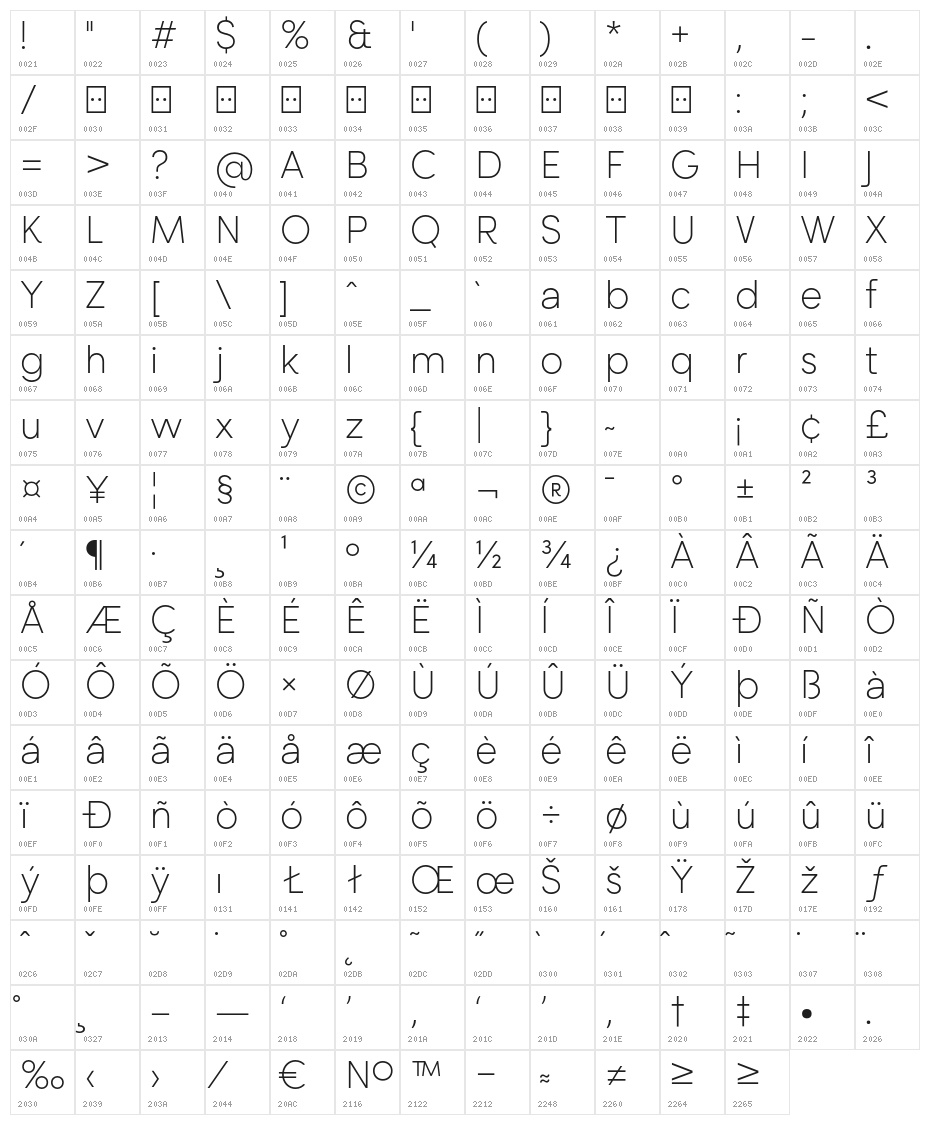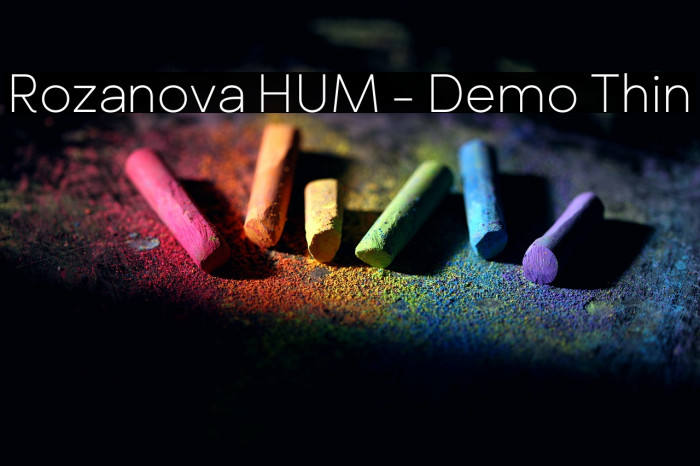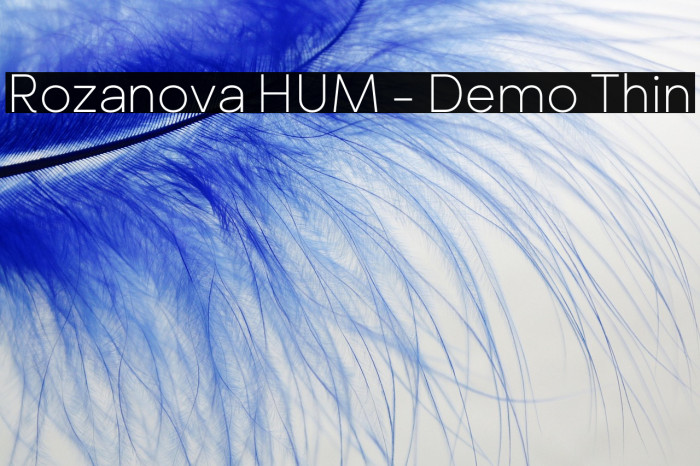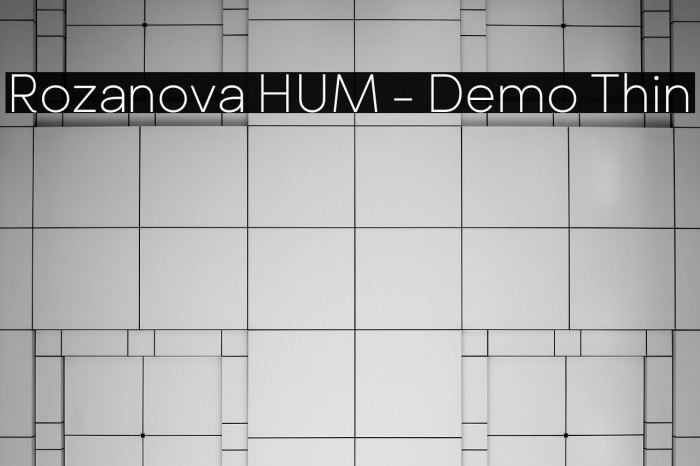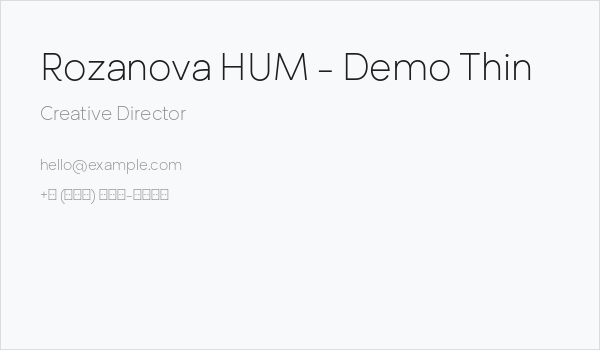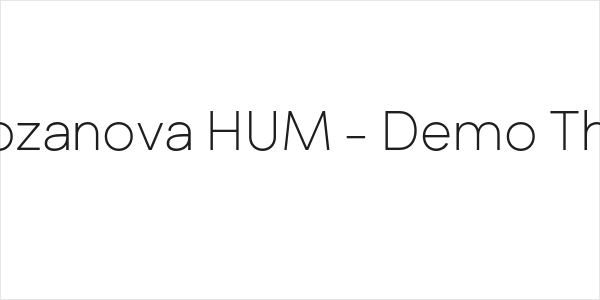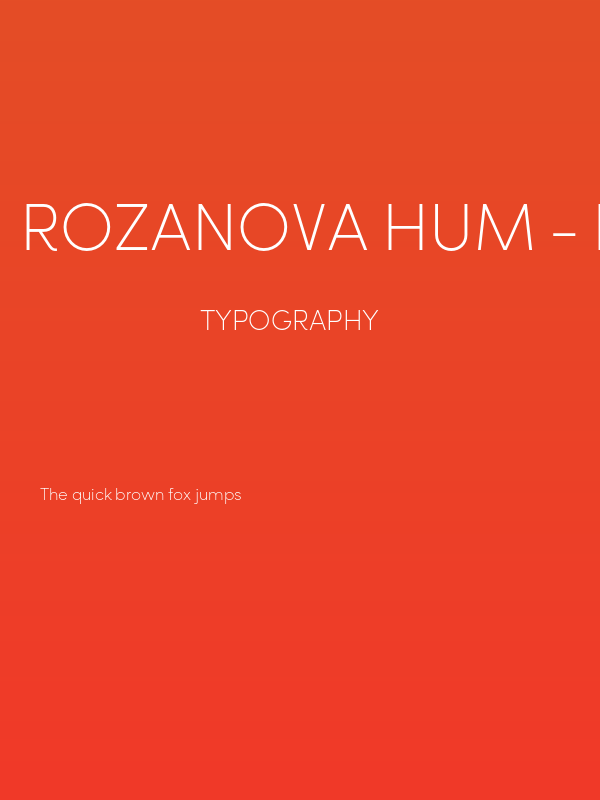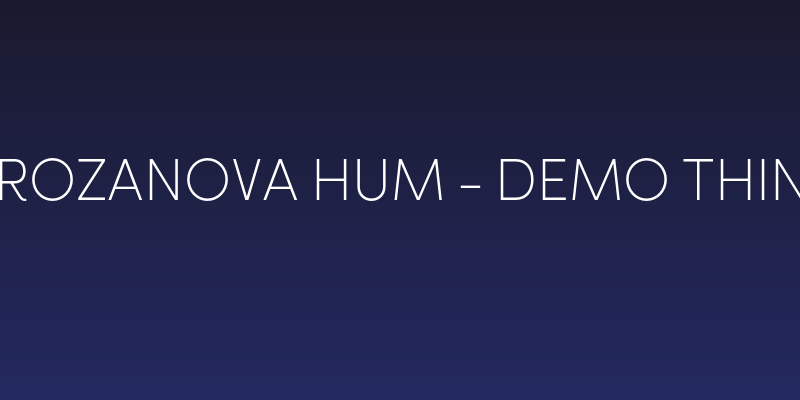
Rozanova HUM - Demo Thin Font
Rozanova HUM - Demo Thin Description
This font features a clean and minimalist design with thin, uniform strokes that give it a modern and elegant appearance. The characters are well-proportioned with a consistent height, contributing to a harmonious and balanced look. The uppercase and lowercase letters maintain a geometric style, with smooth curves and straight lines that enhance readability. The numerals and special characters are designed to match the overall aesthetic, ensuring a cohesive appearance across all text. The simplicity and clarity of this font make it versatile for various design applications.
| Proposed Projects | Ideal for branding, editorial design, web design, and minimalist graphic projects. |